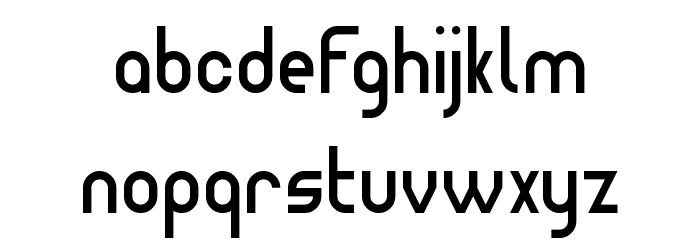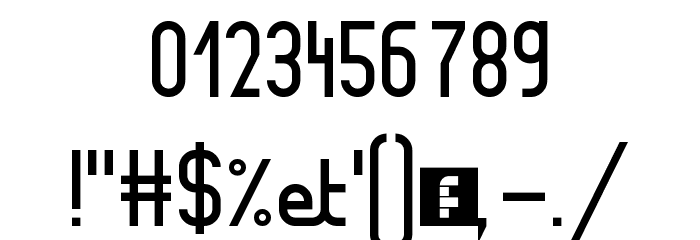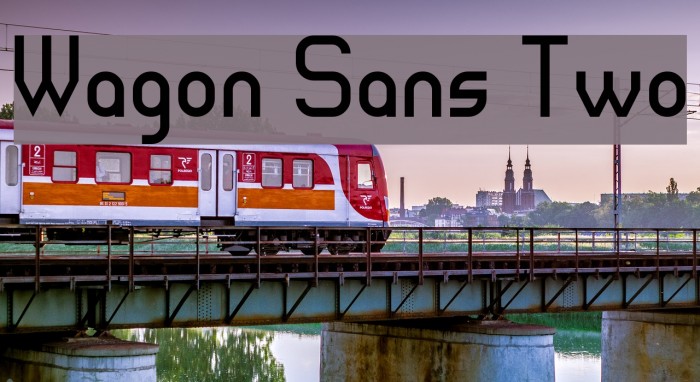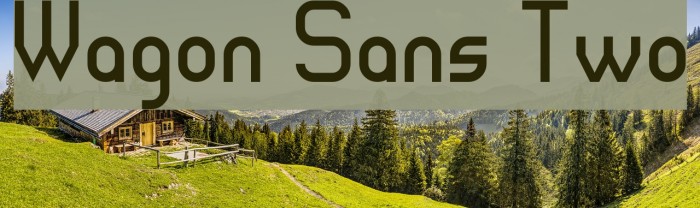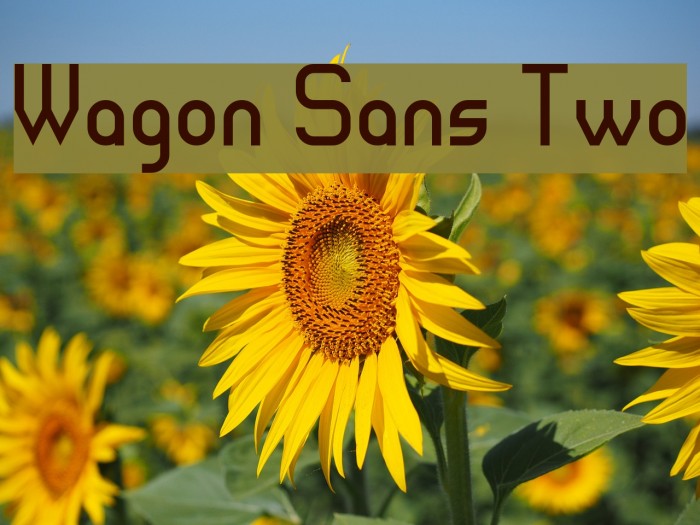
Wagon Sans Two Font
This font features a clean, geometric design with a modern aesthetic. The characters are constructed with consistent stroke widths, giving it a uniform appearance. The uppercase letters are bold and slightly condensed, while the lowercase letters maintain a similar style with rounded edges that soften the overall look. The numerals are clear and legible, matching the style of the alphabetic characters. Special characters are included, maintaining the same geometric and modern design. This font is versatile and suitable for various design applications.
A modern, geometric sans-serif font with consistent stroke widths and a clean appearance.
- Proposed Projects: Ideal for branding, advertising, web design, and editorial projects where a modern and clean look is desired.